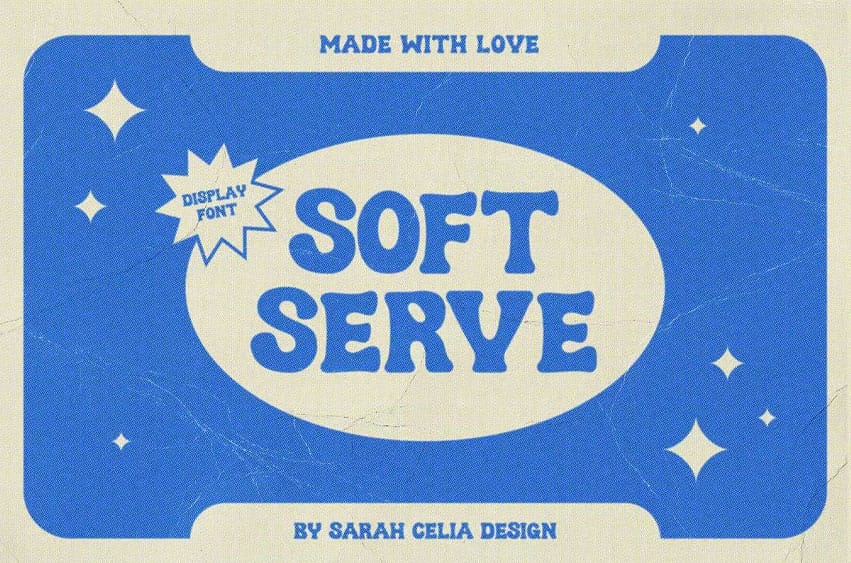
Soft Serve Font is a thick letterform font that delivers vintage-inspired enjoyment through its projects. The distinctive thick visual style of its letters provides an outstanding typographic option for logos and headline designs. Soft Serve provides designers with an outstanding, distinguished presence that becomes prominent no matter the design application, including branding, packaging, and editorial work.